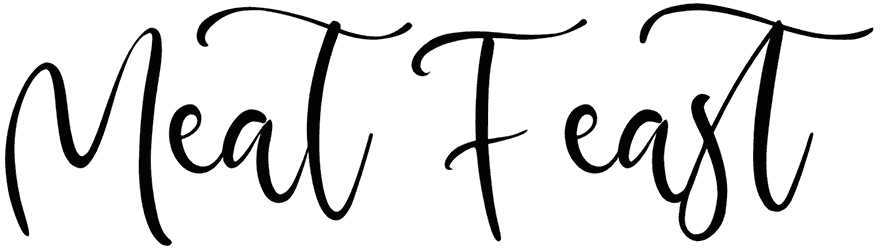
Meat Feast Font
Meat Feast is a handwritten, contemporary script font that mixes the elegance of calligraphy for a really unique look. When it comes to creating an impact with your invites, greeting cards, and visuals for social media, you can’t go wrong by utilizing this font. From RB’s huge font library, you can download the Meat Feast font right away.